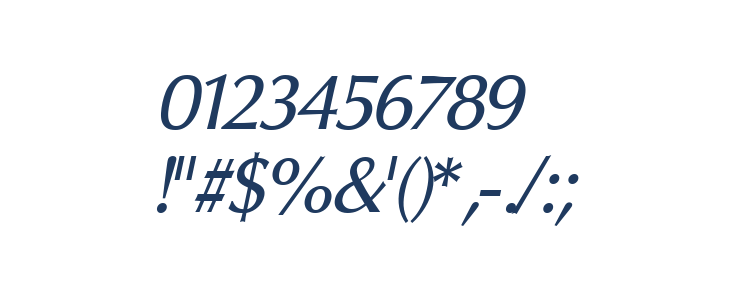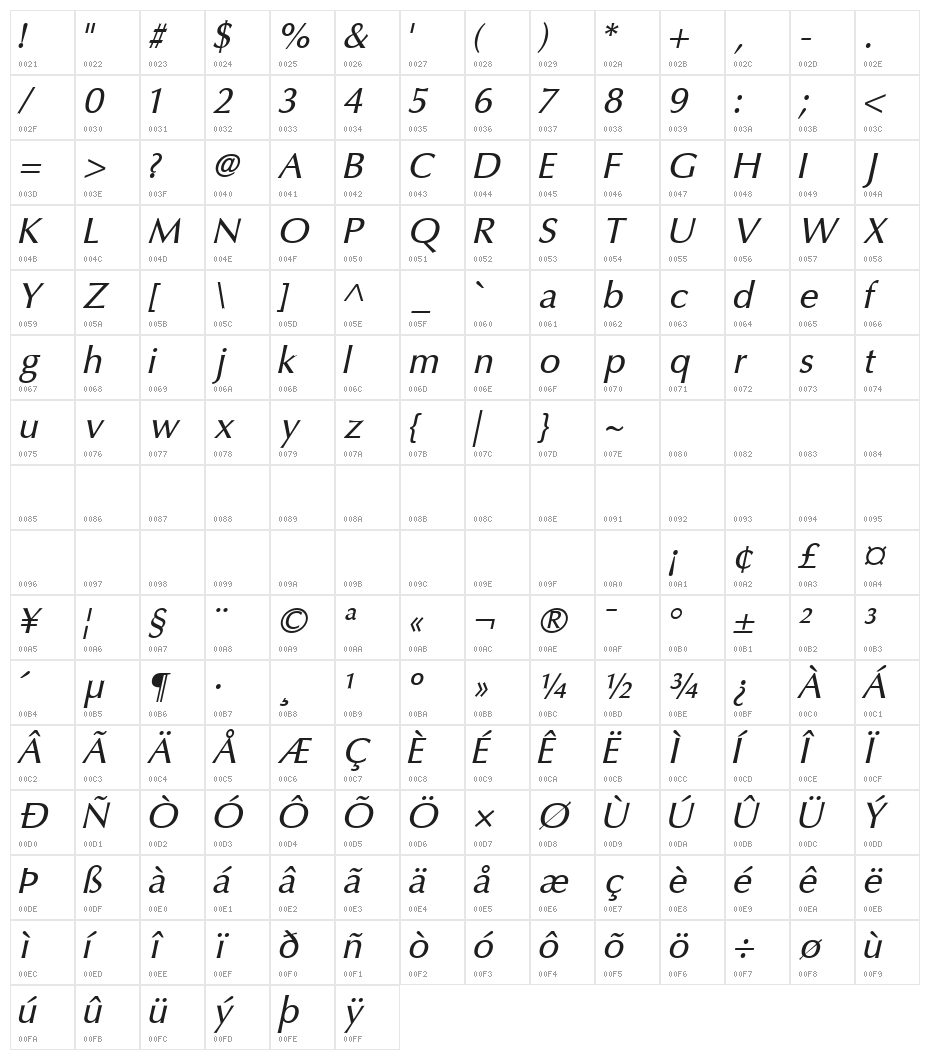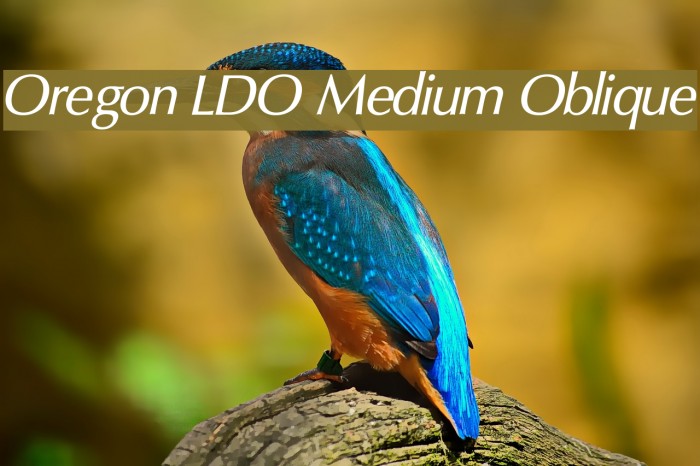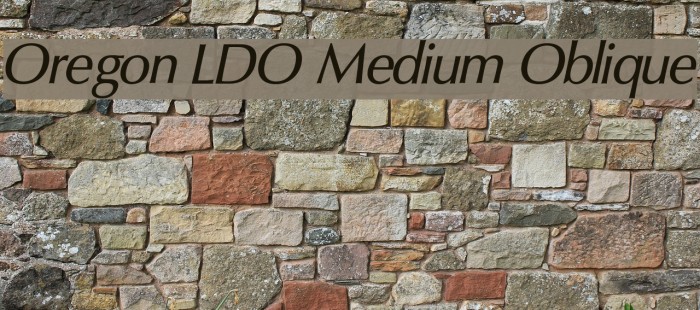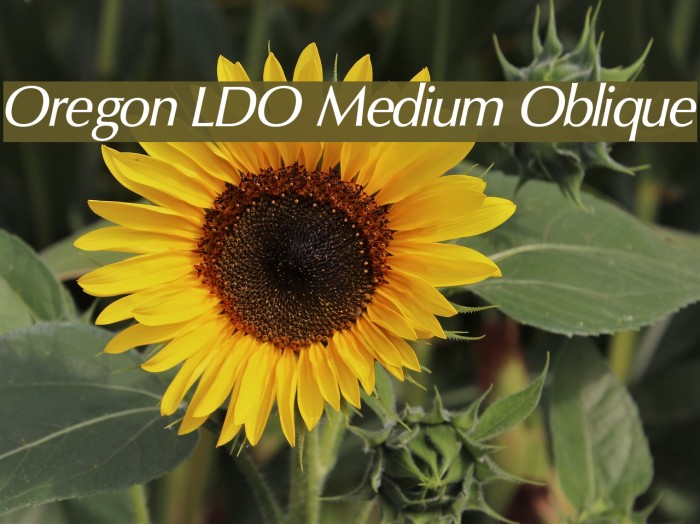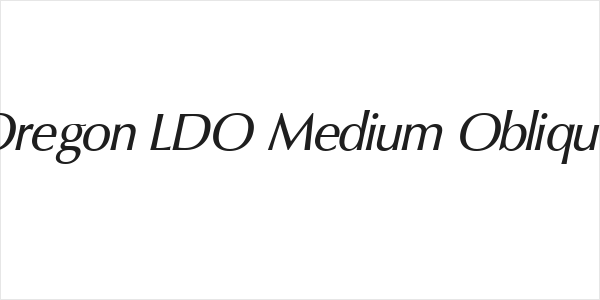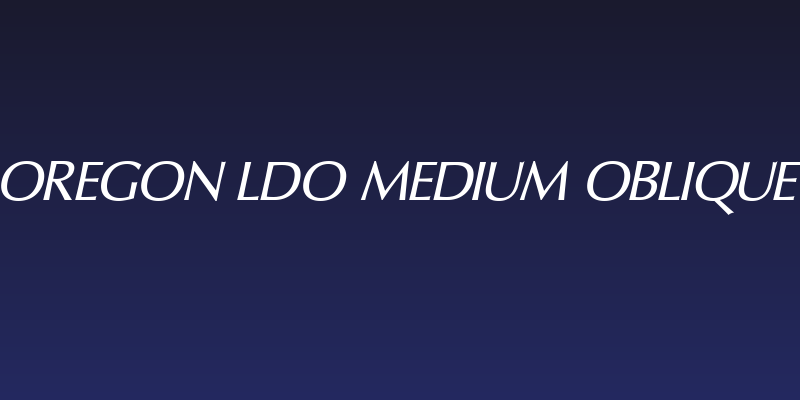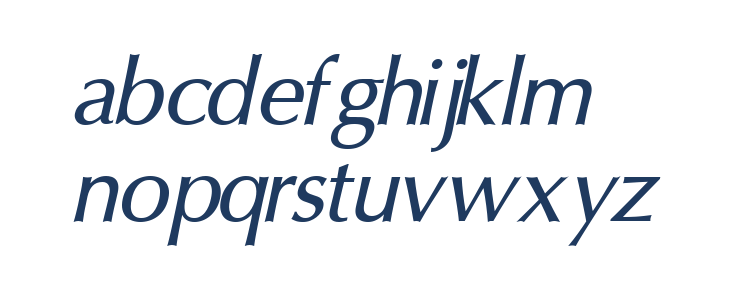
Oregon LDO Medium Oblique Font
Oregon LDO Medium Oblique Description
This font exhibits a sleek and modern oblique style, characterized by its slanted letterforms that convey a sense of motion and elegance. The strokes are smooth and consistent, with moderate contrast between thick and thin lines, giving it a refined appearance. The uppercase and lowercase letters maintain a harmonious balance, while the numerals are clear and legible. Special characters are well-integrated, enhancing the font's versatility. Its overall design is both stylish and functional, making it suitable for a variety of applications.
| Use Case | Headlines, Logos, Editorial design |
| Proposed Projects | Ideal for branding, advertising, and editorial design projects that require a touch of elegance and modernity. |